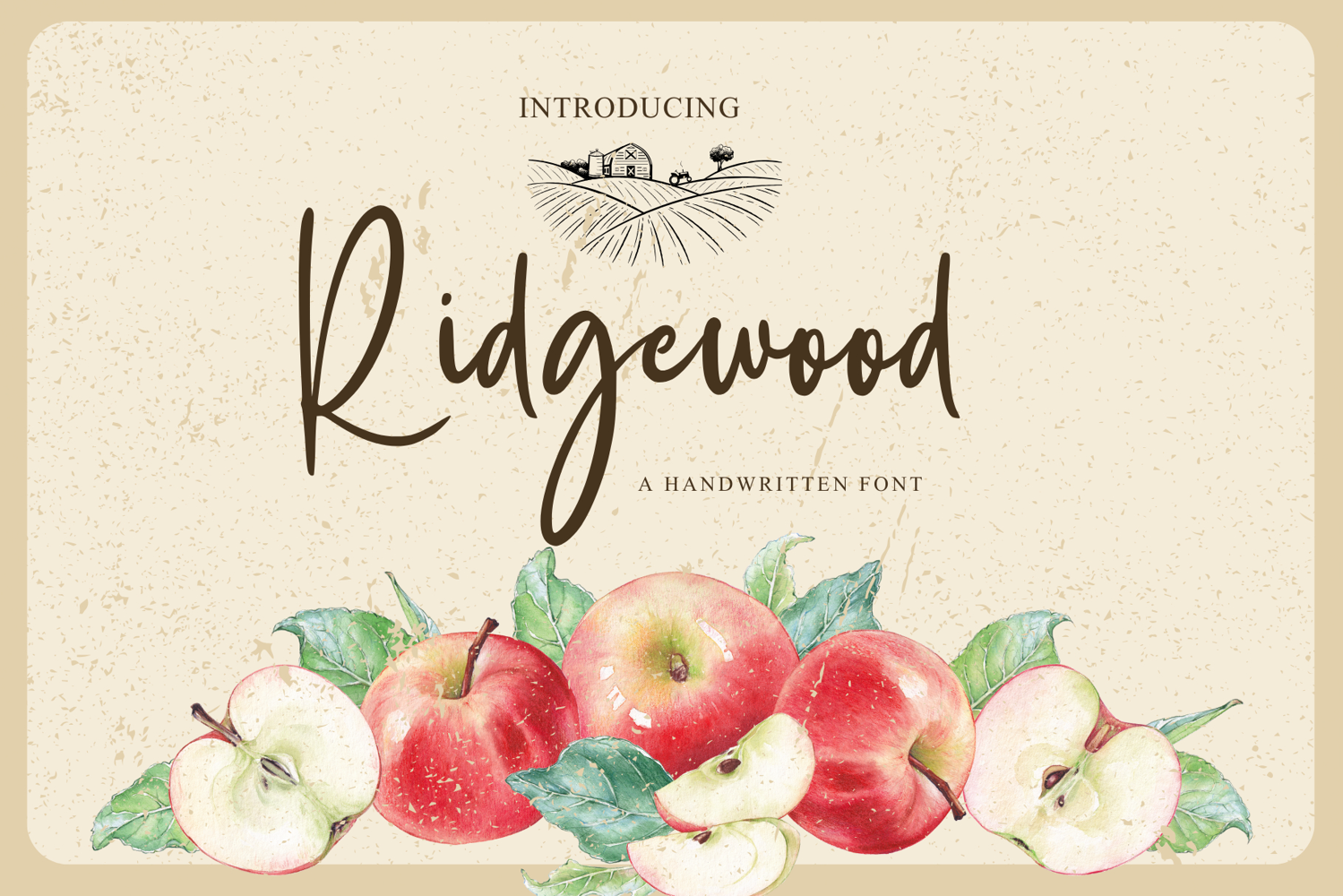
Ridgewood
Introducing Ridgewood, a beautifully handcrafted font that captures the elegance and warmth of natural, organic design. This versatile script font combines smooth, flowing curves with an effortless hand-lettered charm, perfect for creating eye-catching designs that stand out.
Whether you're working on branding, invitations, packaging, or social media graphics, Ridgewood brings a touch of authenticity and sophistication to any project. Inspired by the beauty of nature, the gentle slopes of the hills, and the quiet charm of a woodland retreat, this font is ideal for modern creatives who appreciate a balance of elegance and rustic appeal.
• Handcrafted Elegance: A smooth, flowing script that mimics the special touch of handwritten calligraphy.
• Versatile Style: Perfect for a wide range of projects, from logos and branding to greeting cards, packaging, and digital designs.
• Numerous Ligatures: Includes a variety of stylistic alternates and ligatures to give your designs a unique, specialized feel.
• Multilingual Support: Includes support for multiple languages, making it perfect for global projects.
• Punctuation & Symbols: Complete set of punctuation, numerals, and symbols to cover all your design needs.
• Wedding Invitations & Events
• Logos & Branding
• Product Labels & Packaging
• Social Media Graphics
• Posters & Flyers
• Individual Projects & More
Whether you're looking to add a rustic touch or an elegant flourish to your design, Ridgewood is the perfect font for projects that need a blend of organic beauty and modern style.